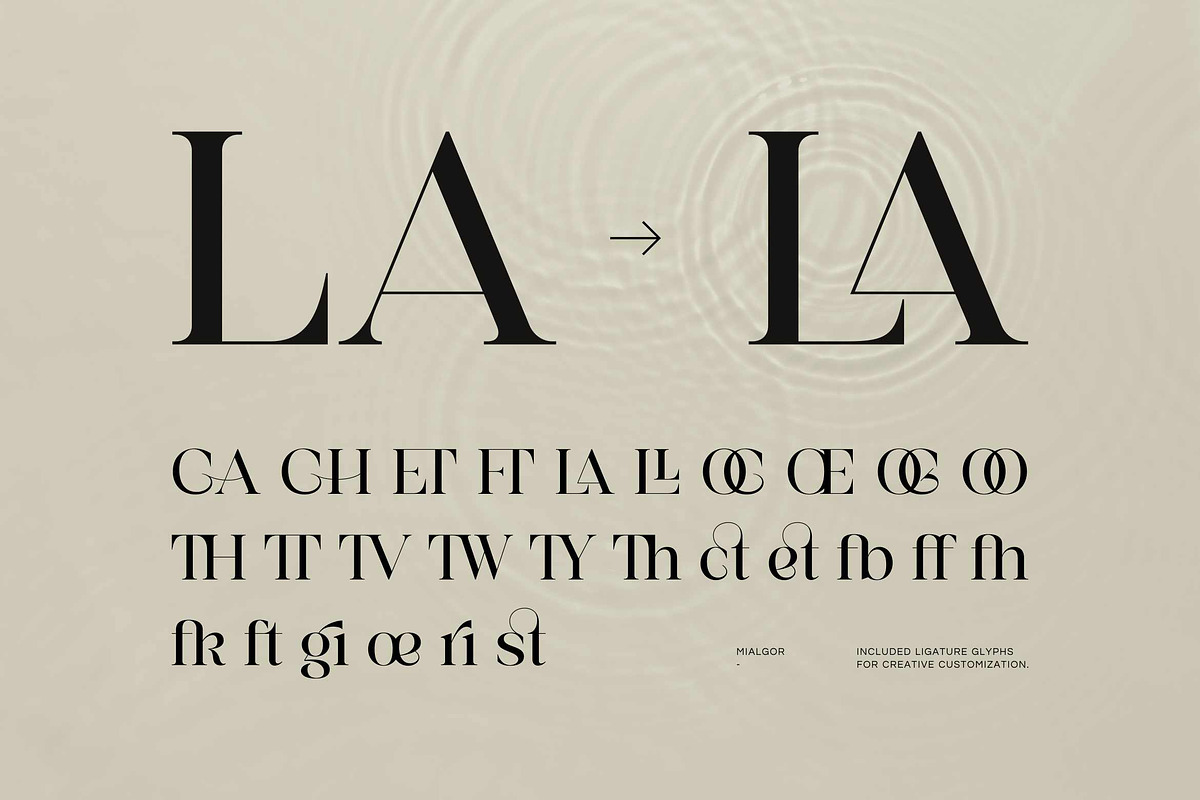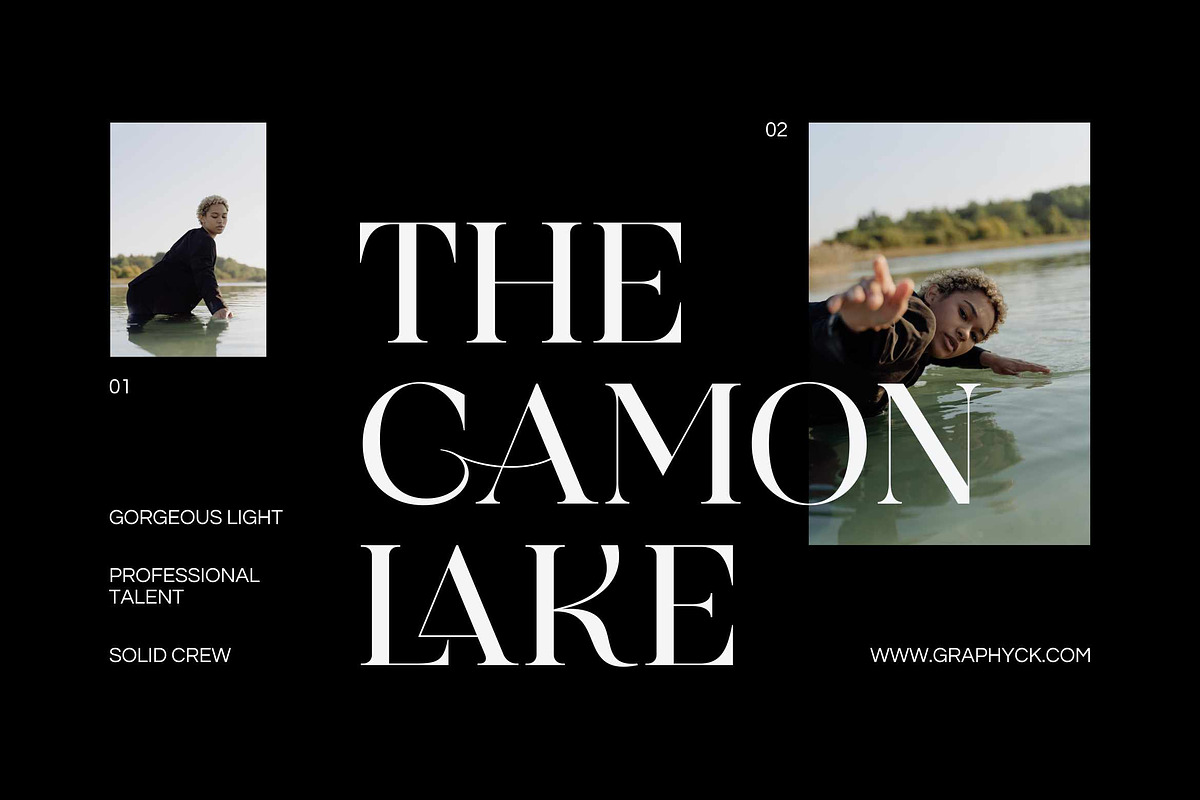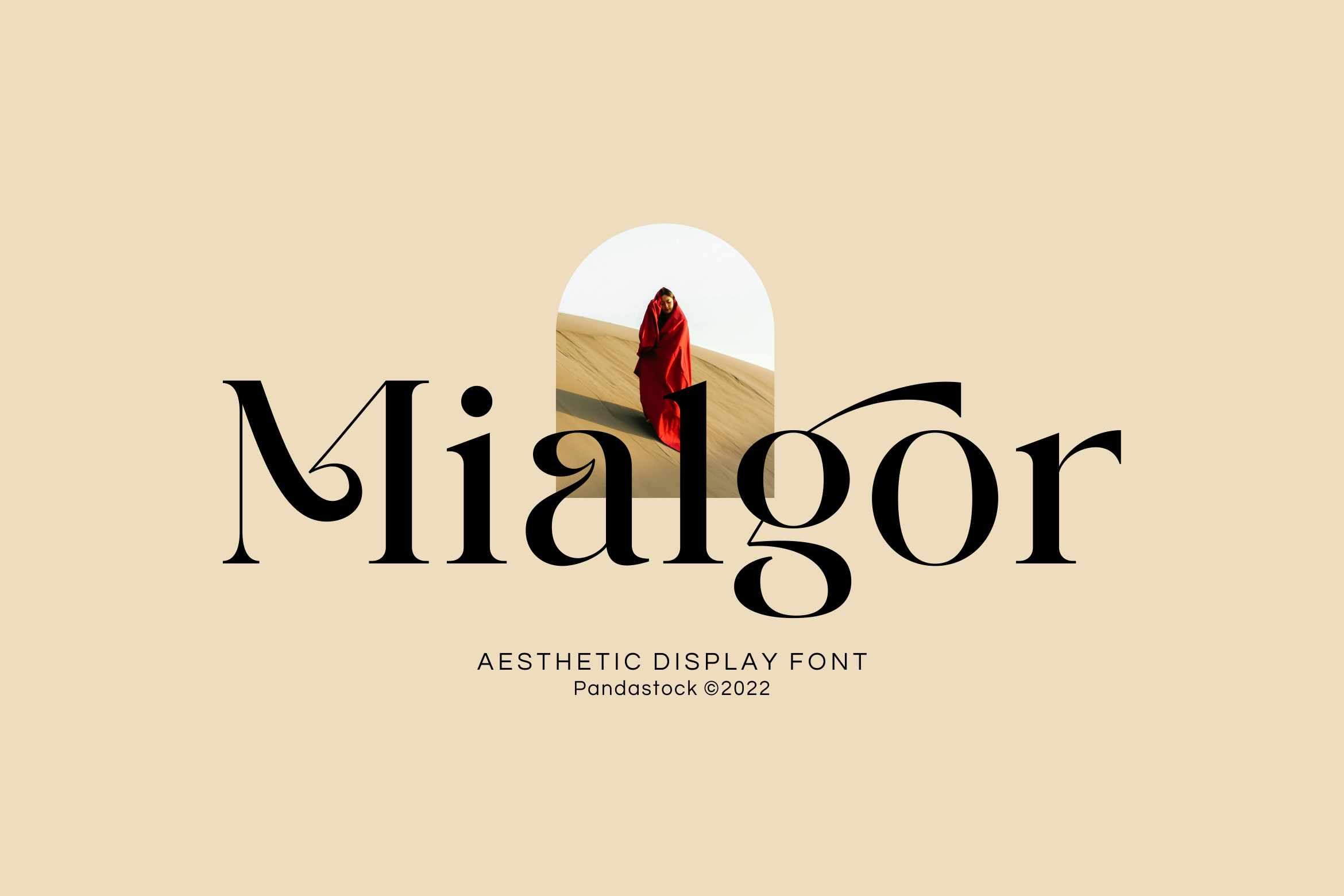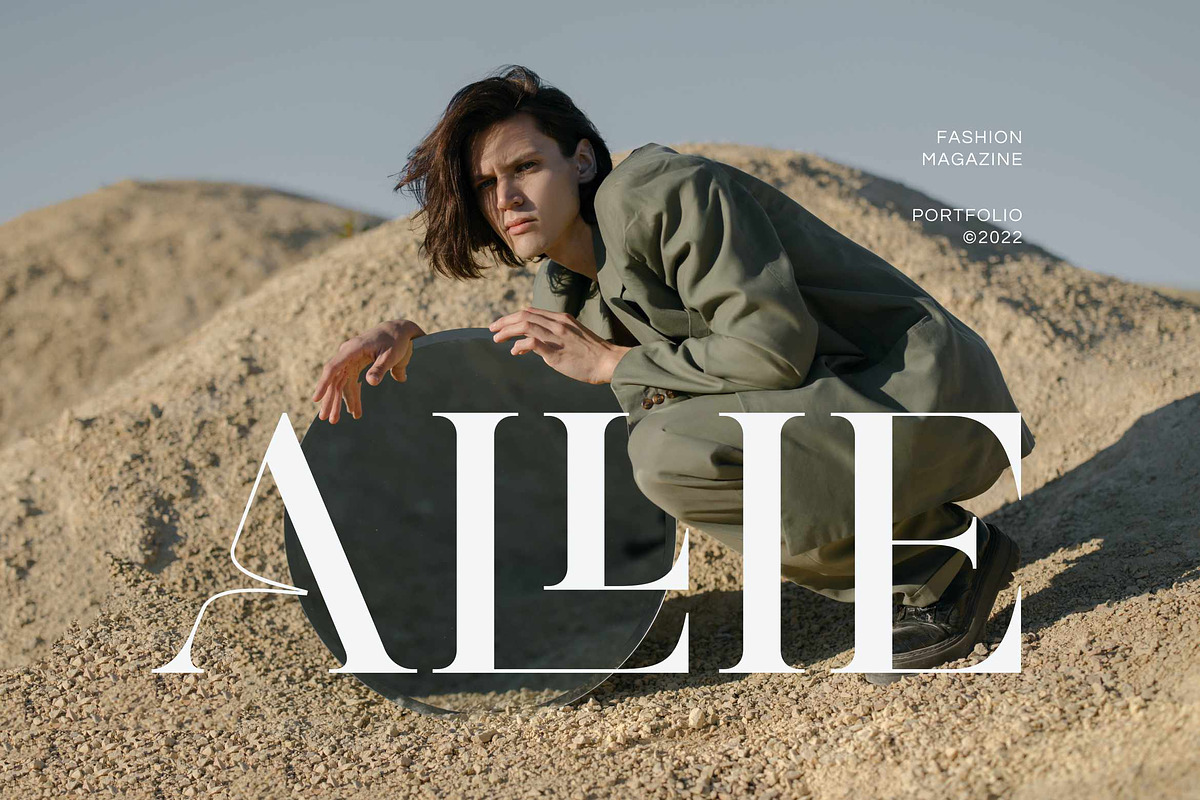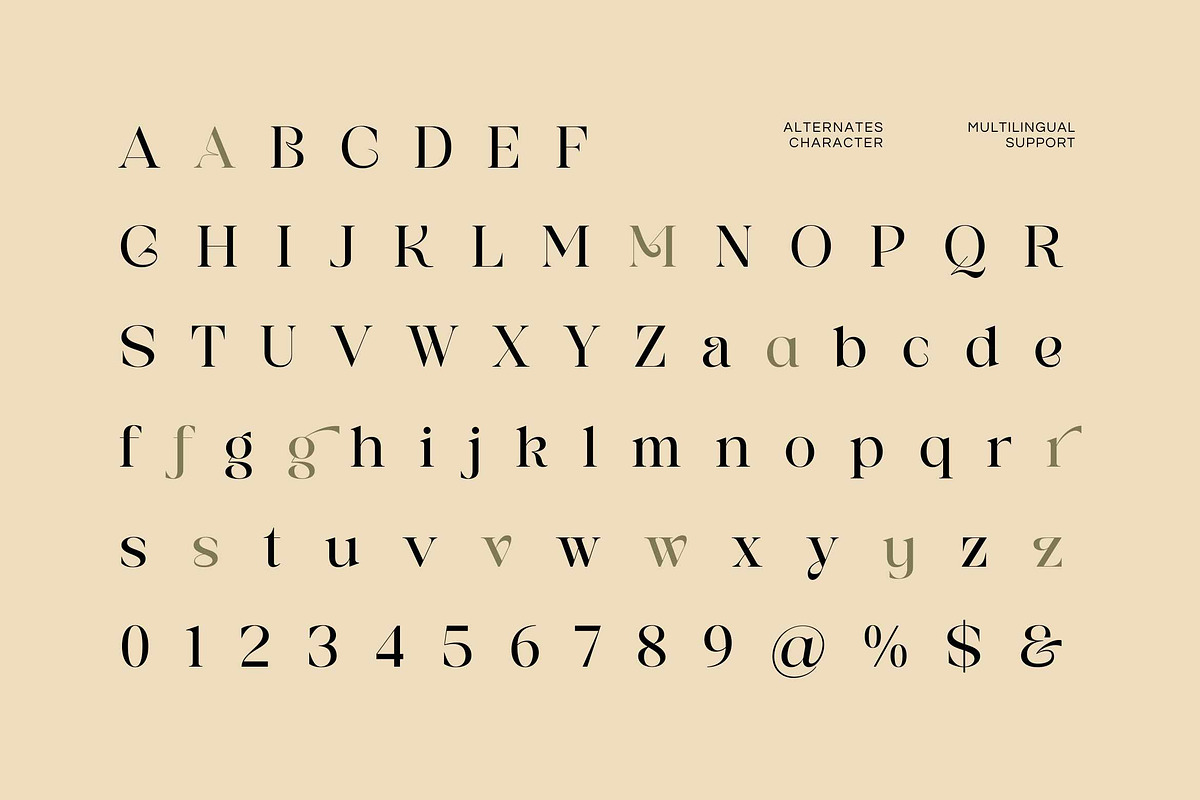
Mialgor - Luxury Classy Font
Mialgor is a luxury classy font that masterfully blends classic proportions with a sharp, modern edge, designed to elevate editorial design and branding.
Mialgor is not just a typeface, it's a complete typographic toolkit. It comes packed with a vast collection of unique and beautiful ligatures that allow you to create fluid, custom looking typography that flows effortlessly.
Perfect for luxury branding, magazine headlines, logotypes, high end packaging, luxury product design, wedding invitations, fashion lookbooks, and social media graphics, Mialgor elevates your project with a sense of artistry and refined modernity.
- Uppercase and Lowecase Characters.
- Numerals and Punctuations.
- Alternates and Ligatures.
- Multilingual Support.